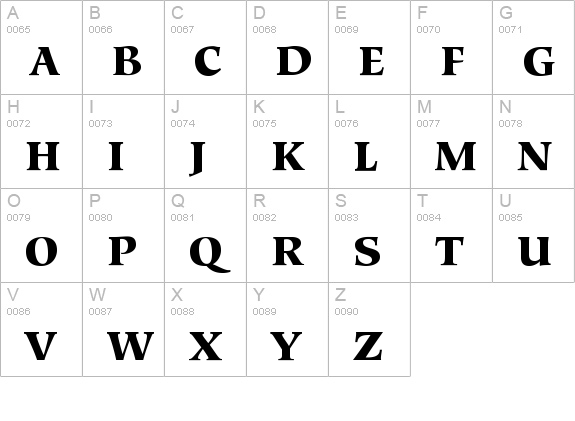
Hiroshige Std Black is a maximum-weight, dramatic variant in the Hiroshige typeface family \xE2\x80\x94 well suited to maximum-impact headlines, posters, and packaging.
Hiroshige Std Black is a stunning and elegant typeface that exudes sophistication and modernity. With its bold and impactful design, this font is perfect for creating eye-catching headlines, signage, and branding materials. The sleek lines and sharp edges of Hiroshige Std Black make it a versatile choice for various design projects, whether it's print or digital. And the best part? Hiroshige Std Black is available for free download at FontsMarket.com. So whether you're a designer looking to enhance your creative projects or a business owner seeking a striking font for your marketing materials, Hiroshige Std Black is the perfect choice. Download it today and elevate your designs with this exceptional typeface.